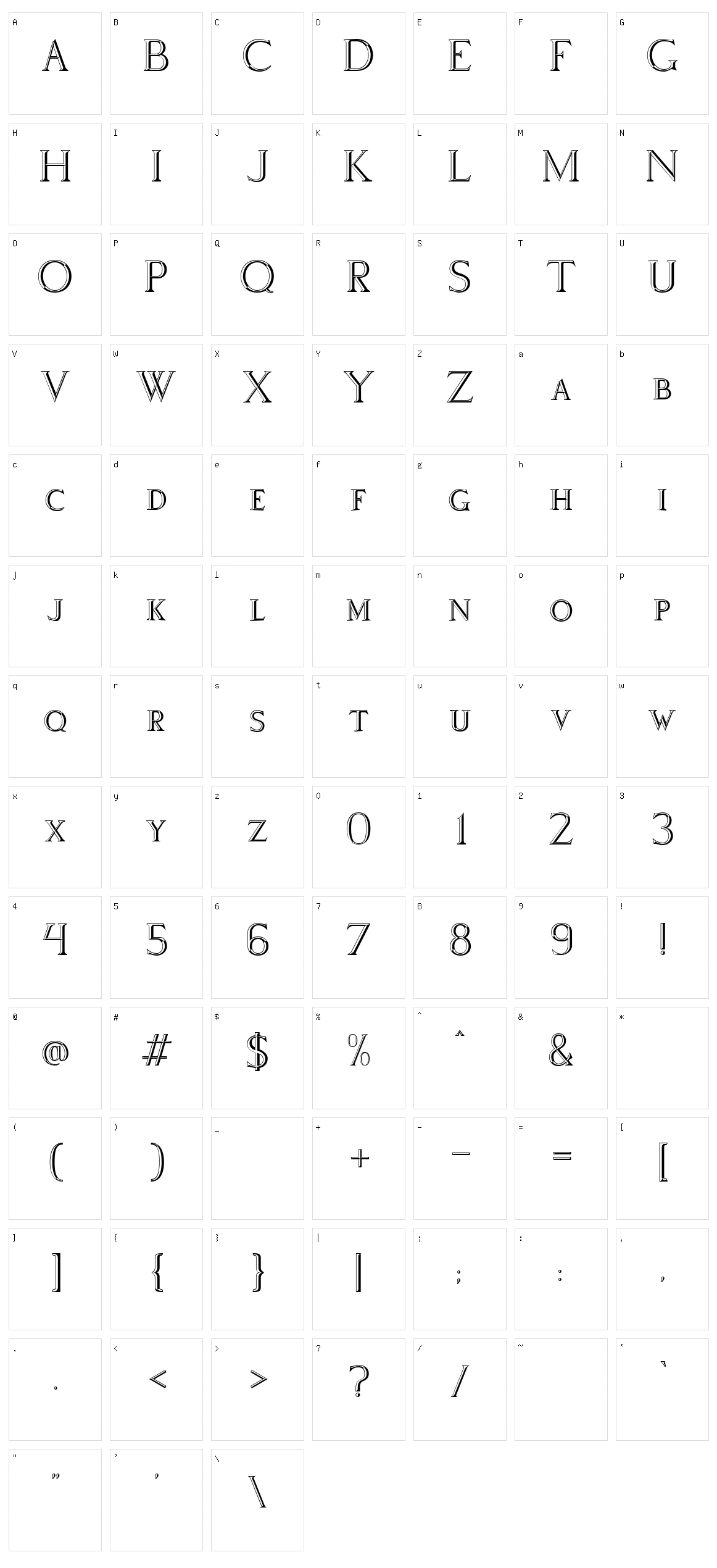
The free font Via Appia is carefully designed by Yves Michel, showcasing a thoughtful balance of creativity and usability and falls under the Roman-Greek font style. When you download the ZIP file, it contains only 101.4 KB of font files, making it lightweight and quick to download. Please review the license details below to understand permitted usage and distribution rights. If license information is not available, we recommend using this font for personal projects only or contacting the author directly for commercial usage permissions.